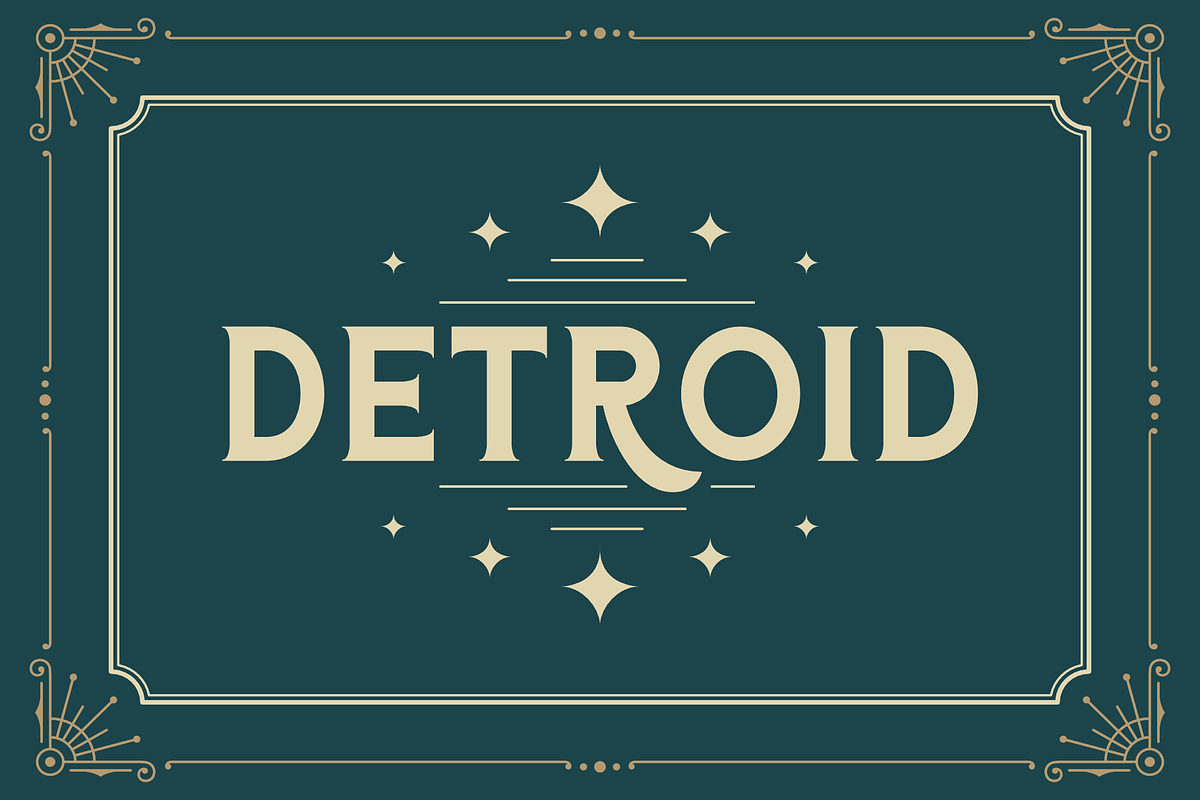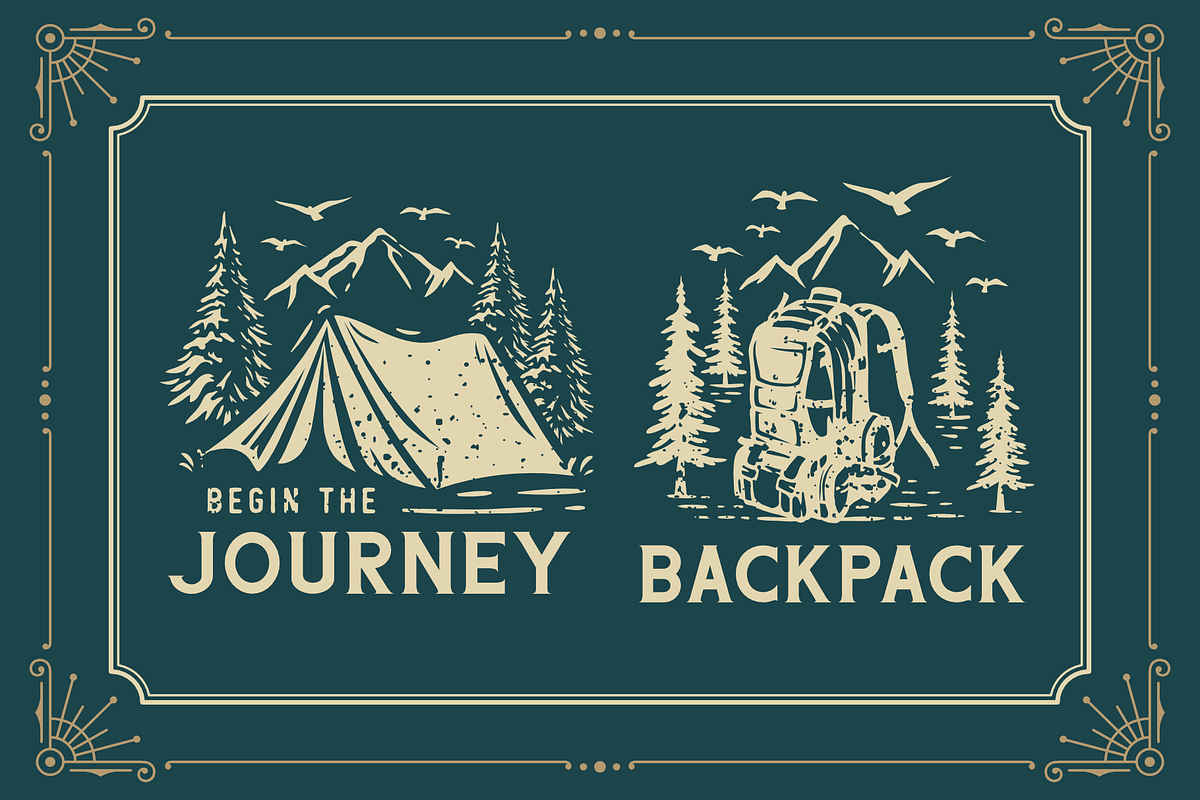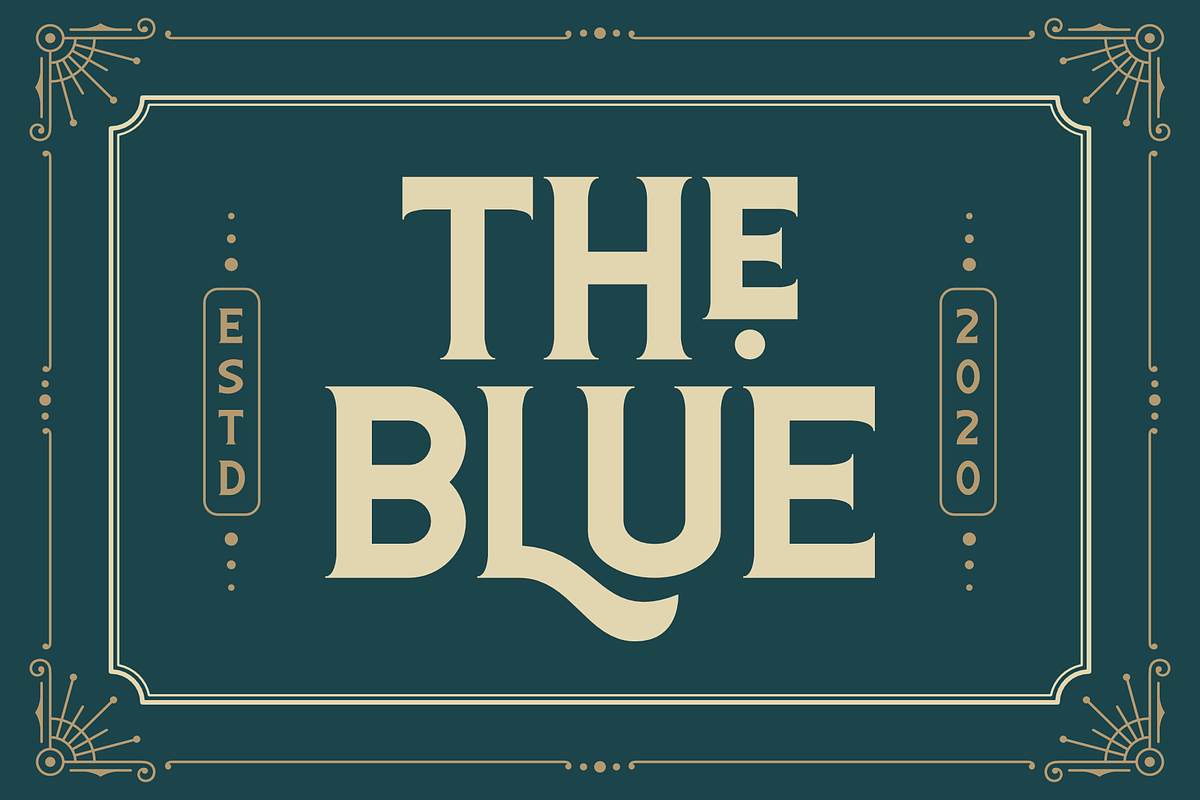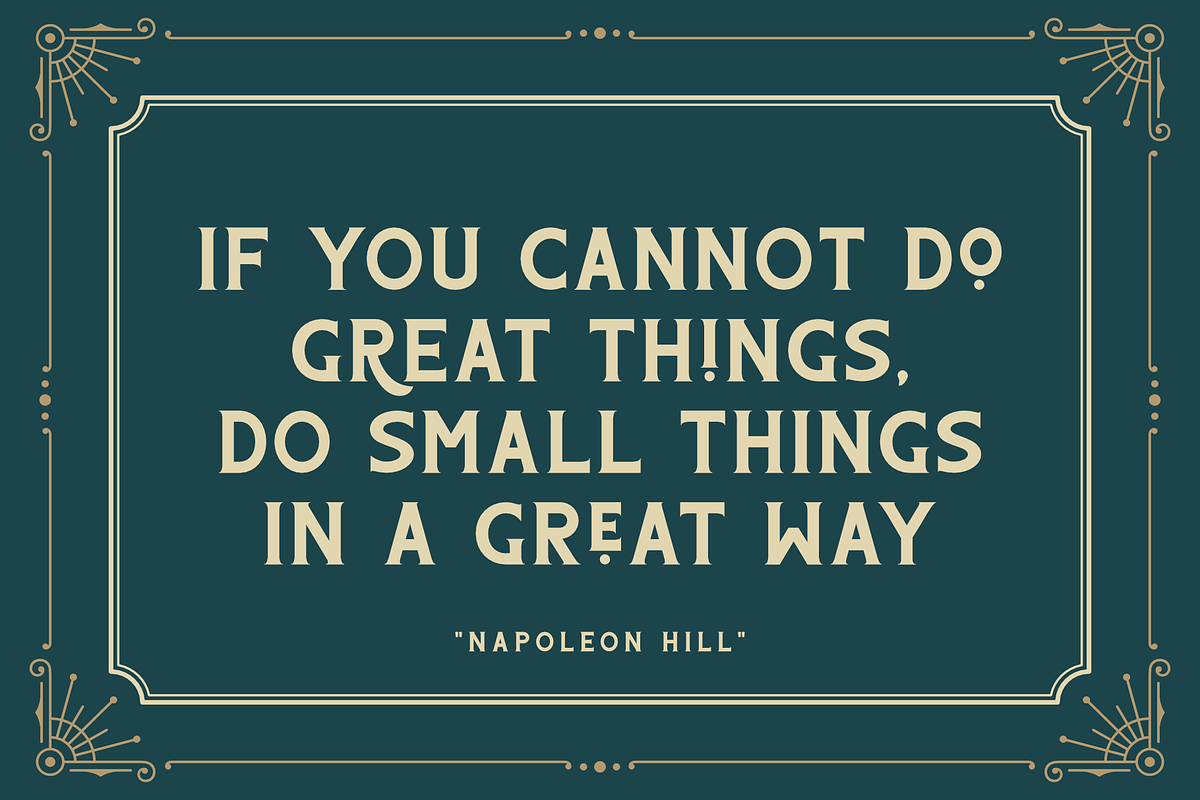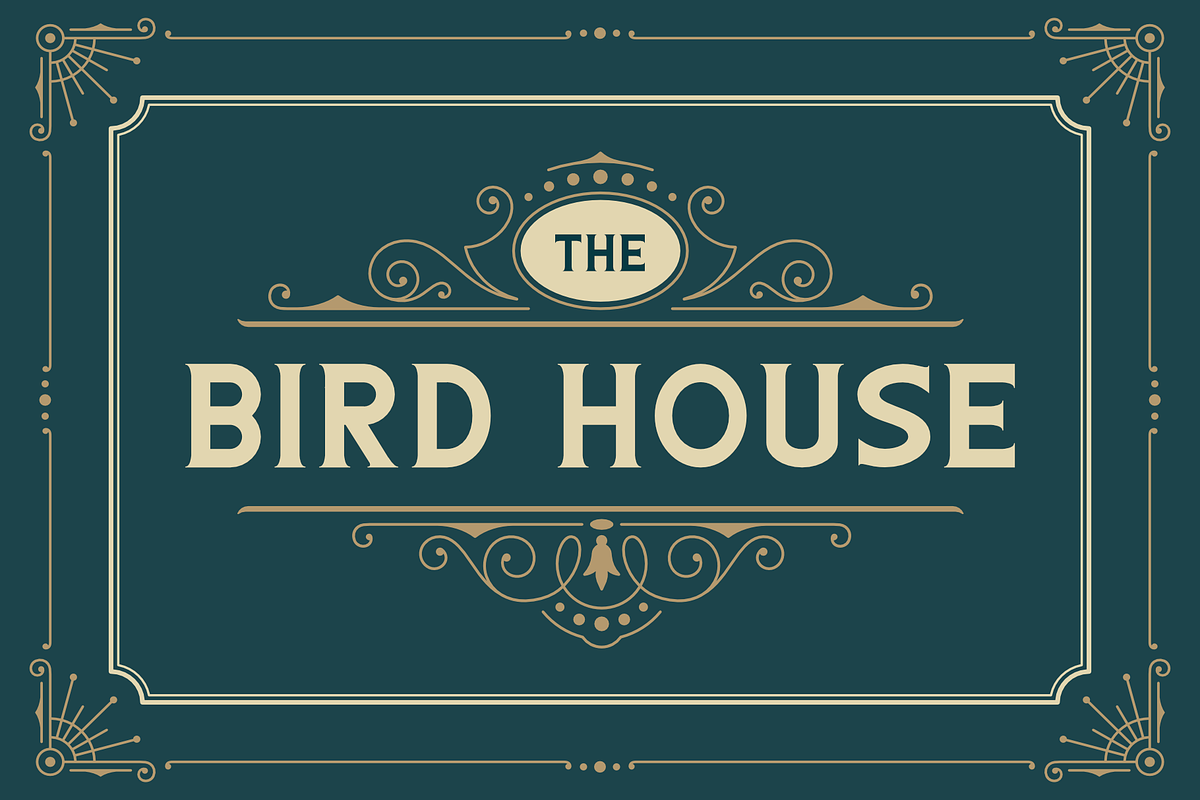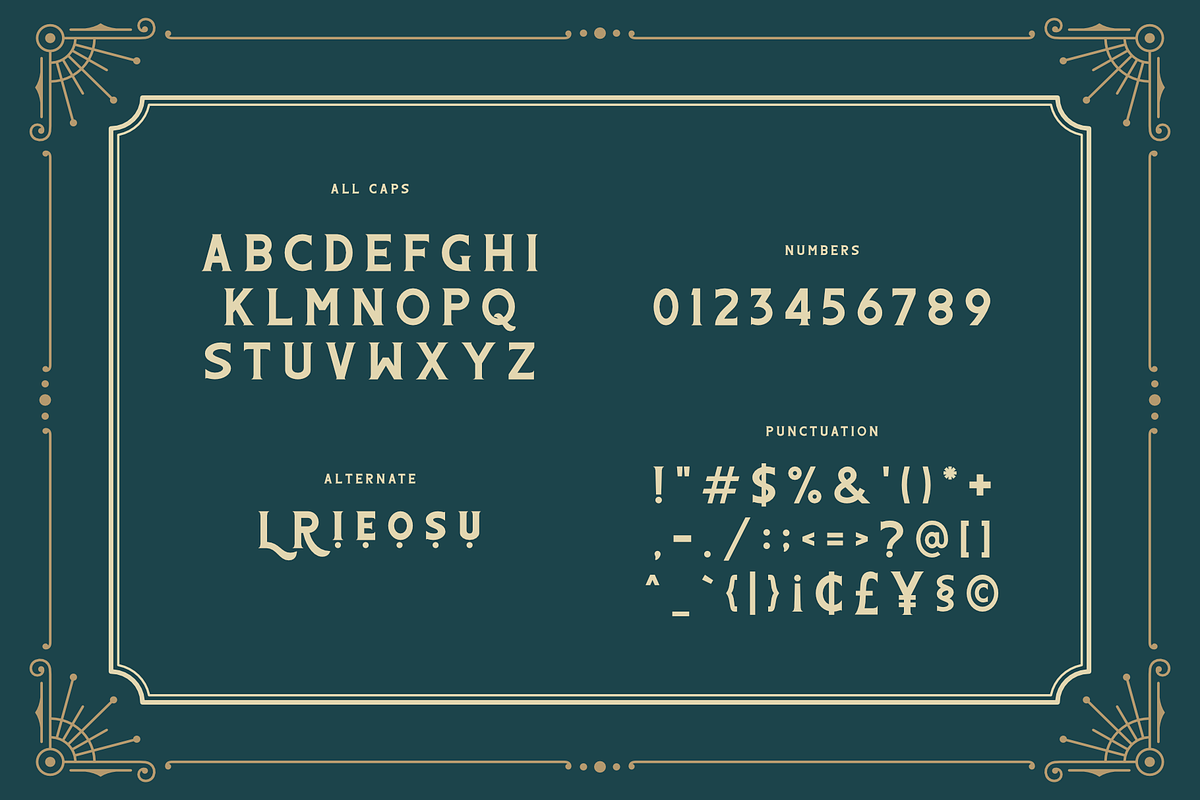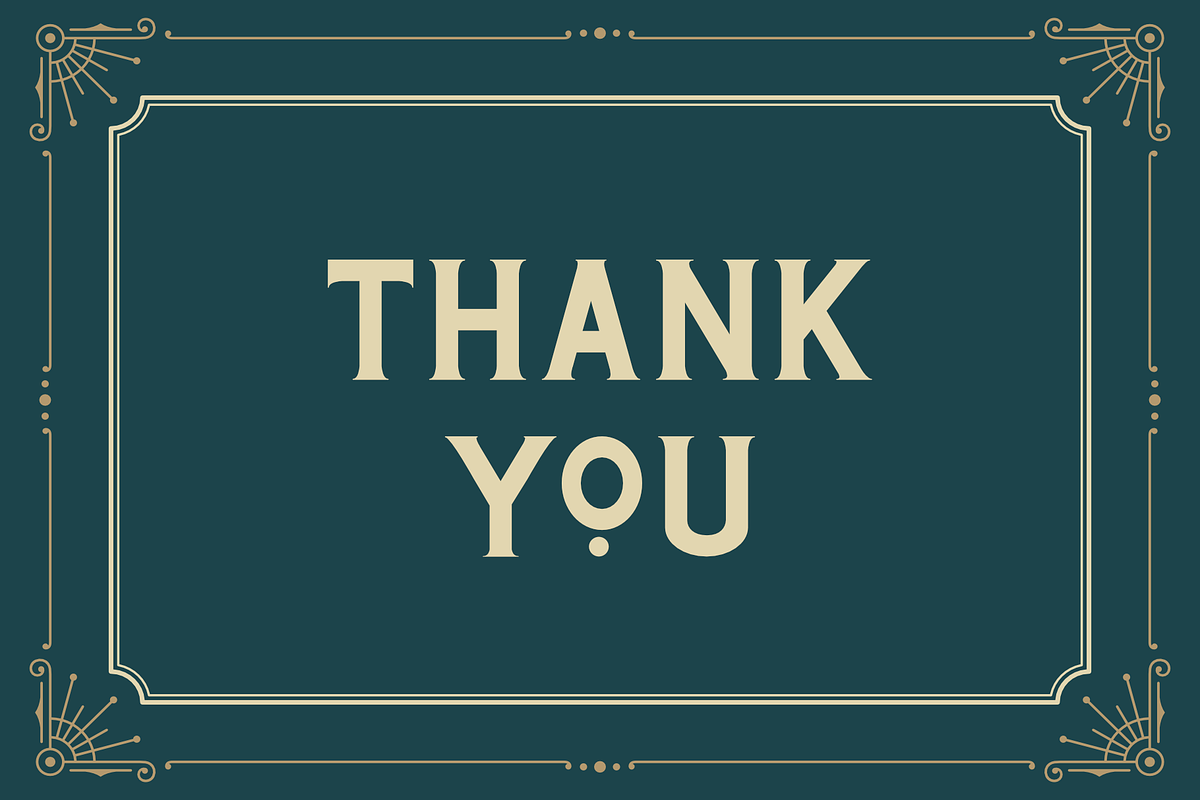
The Blue Font
Blue font is a vintage font that perfect for vintage logo design, poster, vintage label, headlines or packaging design. This font come with beautiful alternate, so this font combination allows you to easily build beautiful vintage designs.
- This font come with beautiful alternate, so this font combination allows you to easily build beautiful vintage designs.
Why The Blue Font is worth a look
The Blue Font by Pen Culture fits naturally into Branding, posters, packaging, typography.